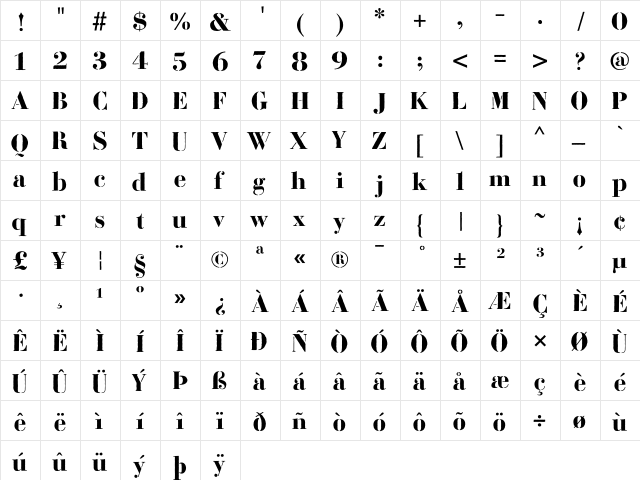
Bodoni Fragile Regular
| Foundry | Mario Arturo |
| Designer | Mario Arturo |
Design Context for Bodoni Fragile Typeface
Bodoni Fragile offers clean, dependable letterforms without strong stylistic allegiance, making it a practical choice for designers who need flexibility.